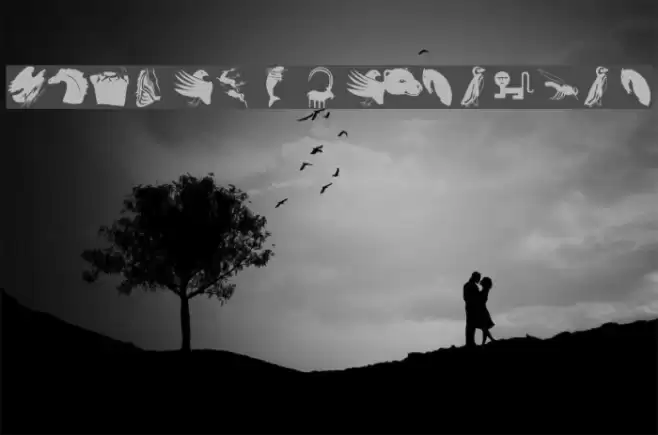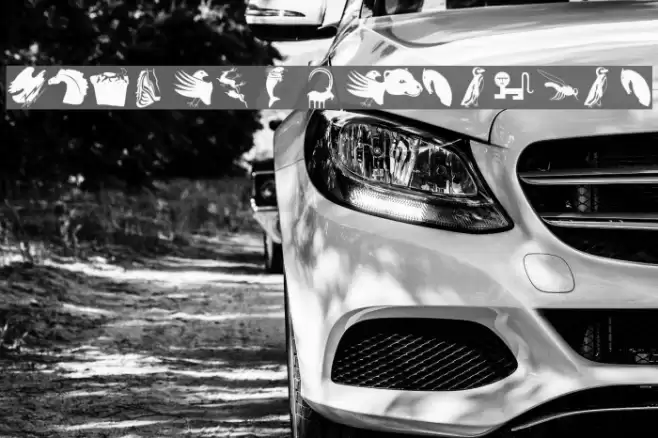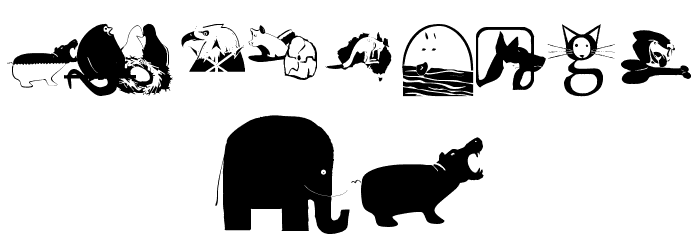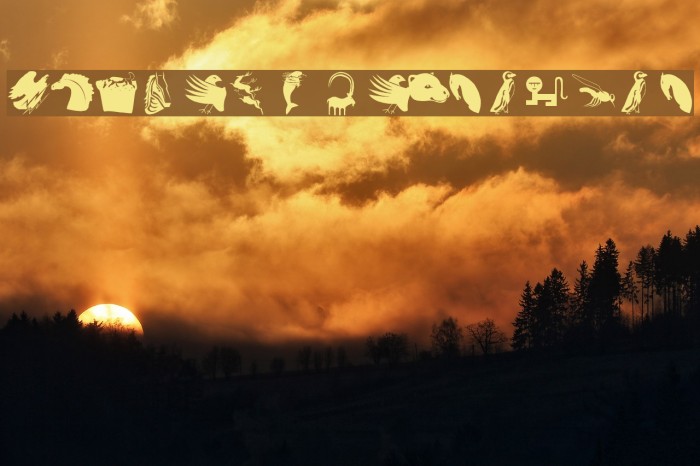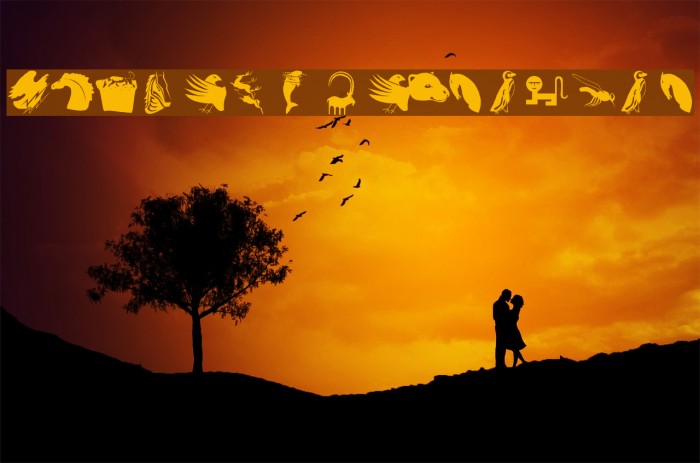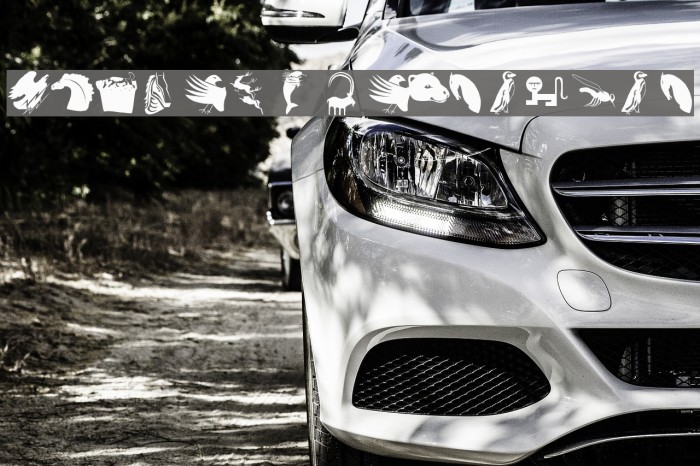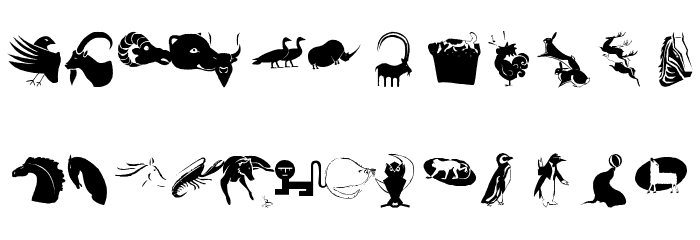
AnimalShadowsTwo Font
AnimalShadowsTwo Description
A playful decorative font where each character is represented by a unique animal silhouette or a combination of animals and objects, creating a whimsical and illustrative style. The glyphs are highly pictorial, with varying levels of detail and complexity, making each letter distinct and visually engaging.
Animal-themed decorative font with each glyph as a unique animal silhouette from Uncategorized fonts.
- Proposed Projects: Children’s books, educational materials, posters, animal-themed branding, playful invitations.
- Overall Style: Decorative, Whimsical, Playful
- Use Case: Logos, Posters, Headlines, Themed graphics